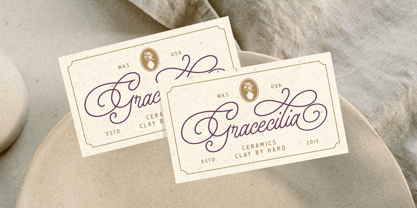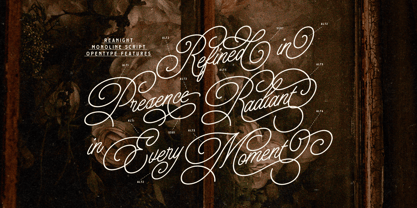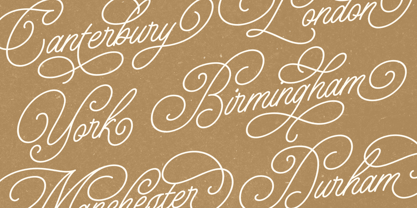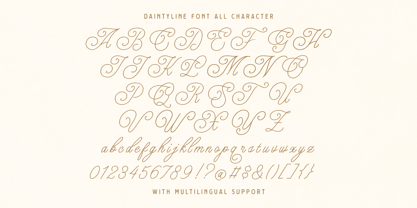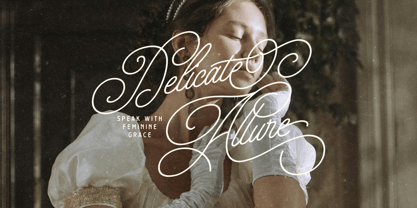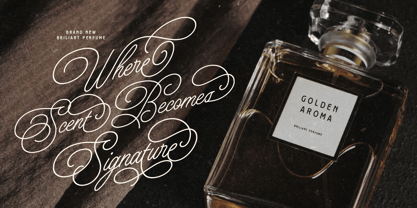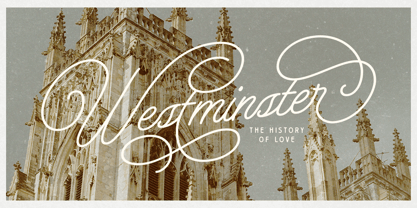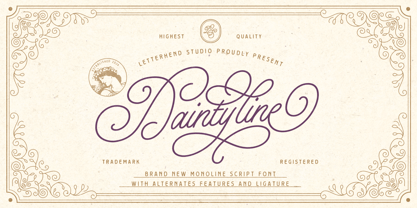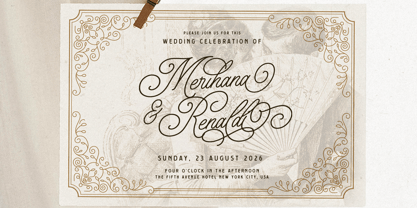
Daintyline
by Letterhend
The Daintyline Font Family was designed by Hendry Juanda and published by Letterhend. Daintyline contains 1 styles. More about this family
Daintyline flows in with soft, graceful curves and a charming monoline touch, bringing that sweet vintage elegance with a smooth, modern feel. The strokes are clean yet full of personality, with lovely swashes and delicate loops that dance effortlessly across the page—like a handwritten note with a fancy twist.
Features :
• Uppercase & lowercase
• Numbers and punctuation
• Alternates & Ligatures
• Multilingual Support